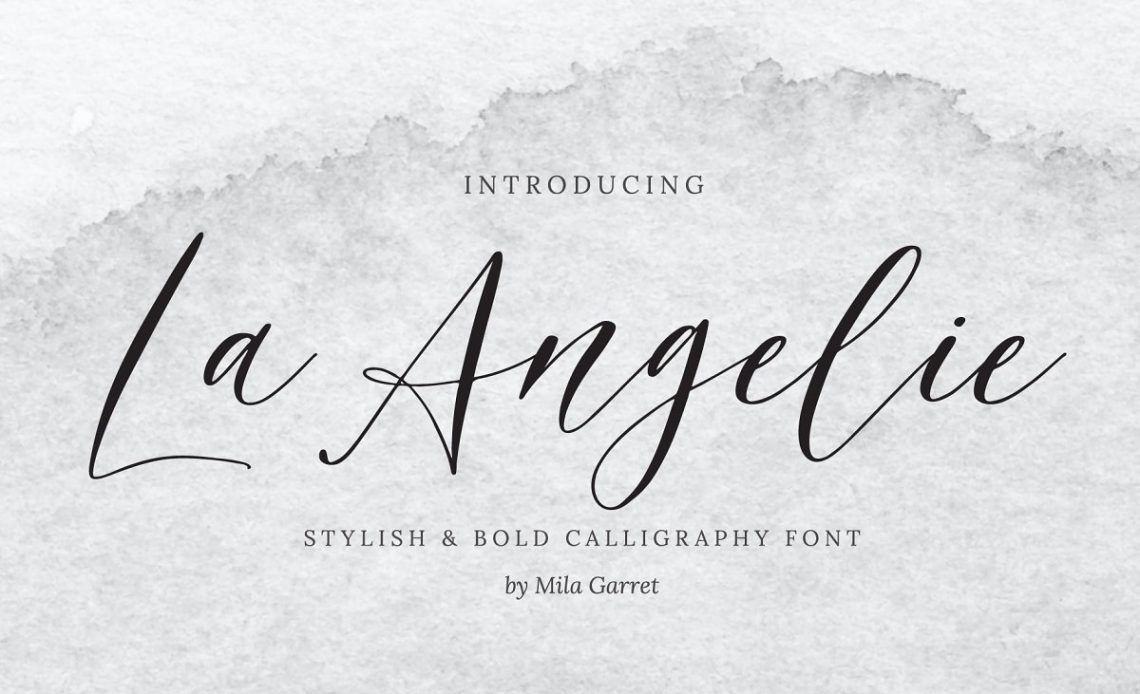
Looking for the perfect font to elevate your luxury logo and wedding stationery? Look no further than La Angelie, the stunning calligraphy font created by Mila Garret. With its modern twist on traditional calligraphy, La Angelie is the ideal choice for those seeking a custom handwritten look that is both elegant and contemporary.
Featuring a full set of standard alphabet and punctuation, along with extra beginning and ending swashed lowercase characters, this font offers a variety of stylistic alternates and ligatures to ensure your design stands out. Plus, its PUA encoding means that accessing those extra swashed characters requires no special software, making it a user-friendly option for designers of all skill levels.
But La Angelie isn't just limited to logos and stationery. Its versatility extends to websites, calligraphy quotes, and more, making it a valuable asset for any design project. And with multilingual characters included, you can ensure your message reaches a global audience.
Don't settle for a basic font when you can have La Angelie - the best font for luxury logo and branding design. With its stunning features and modern edge, this font is sure to elevate your design and leave a lasting impression on your audience.